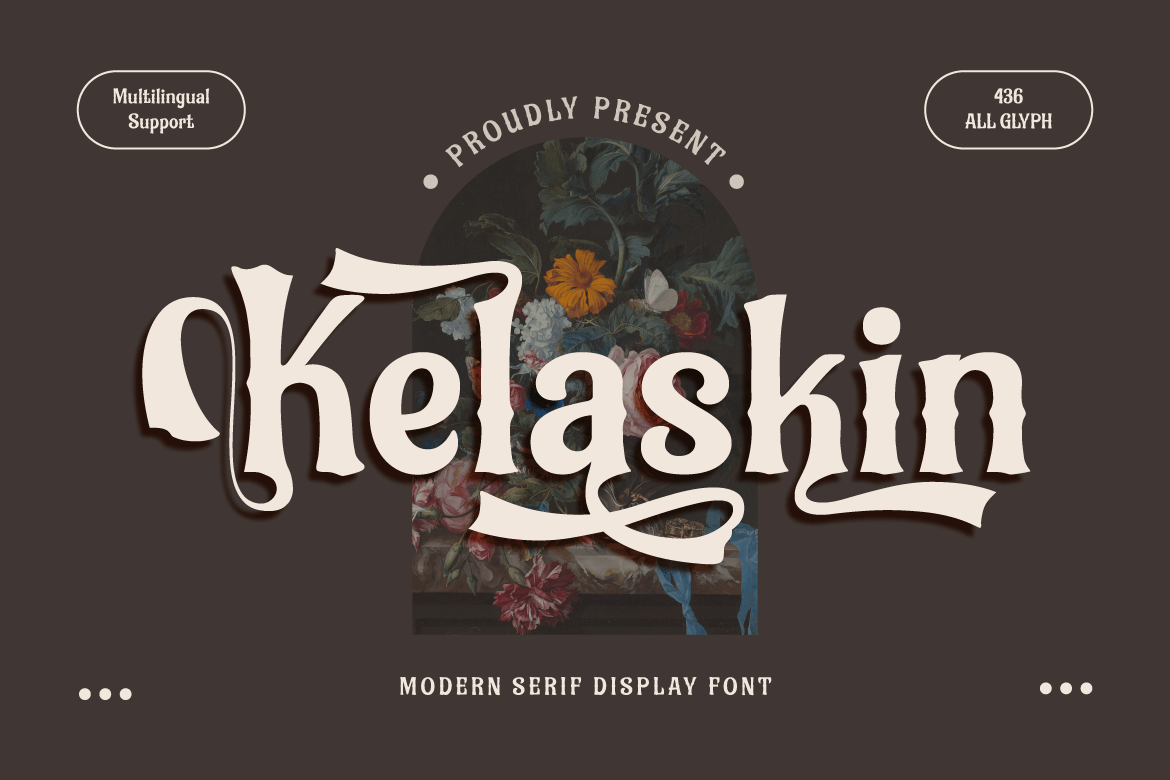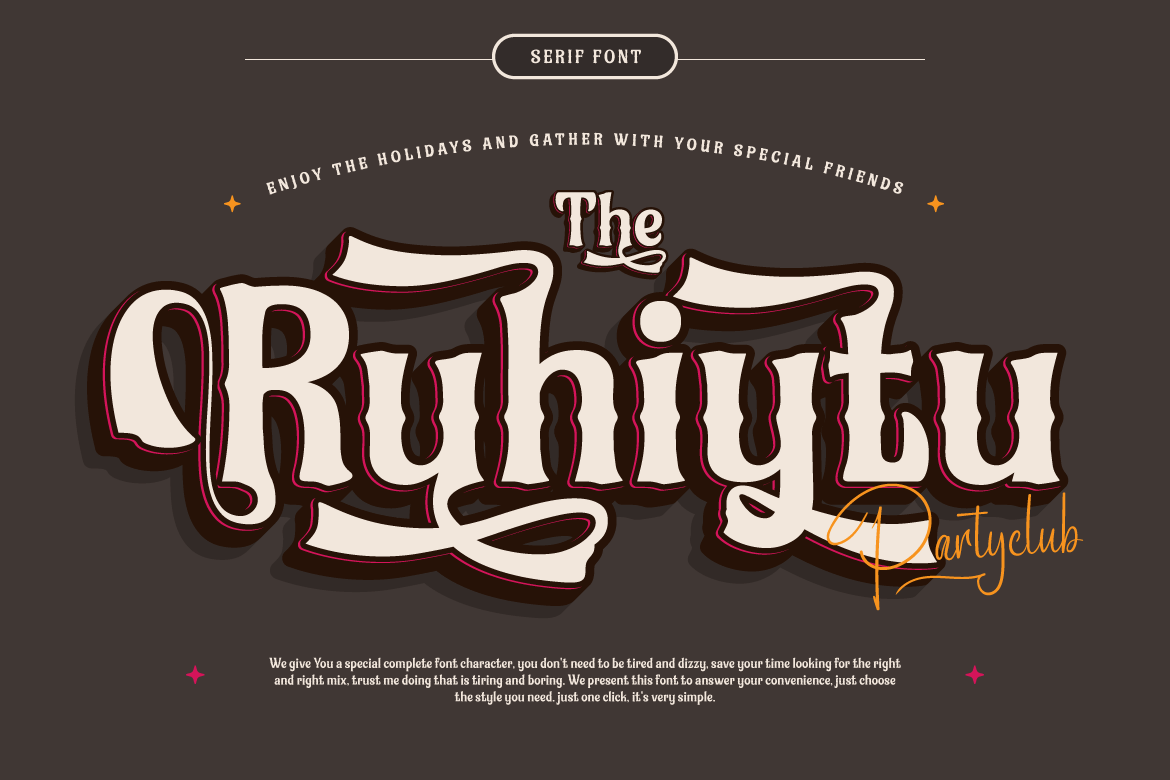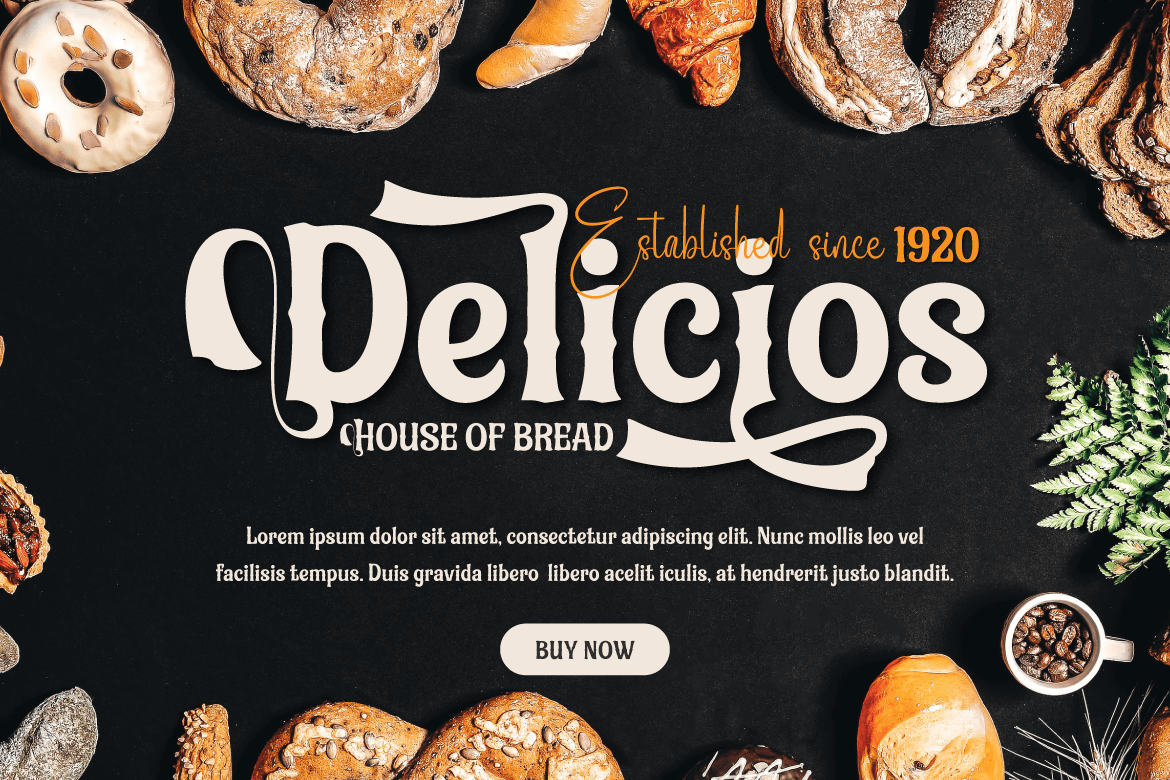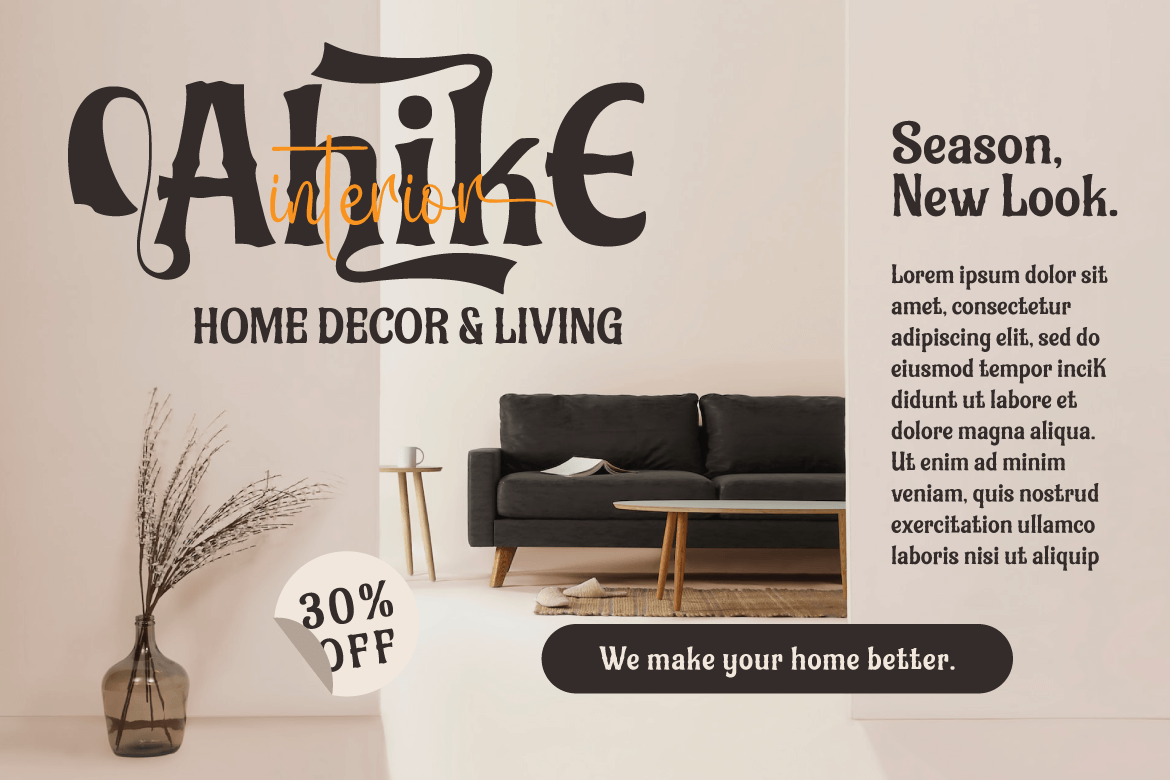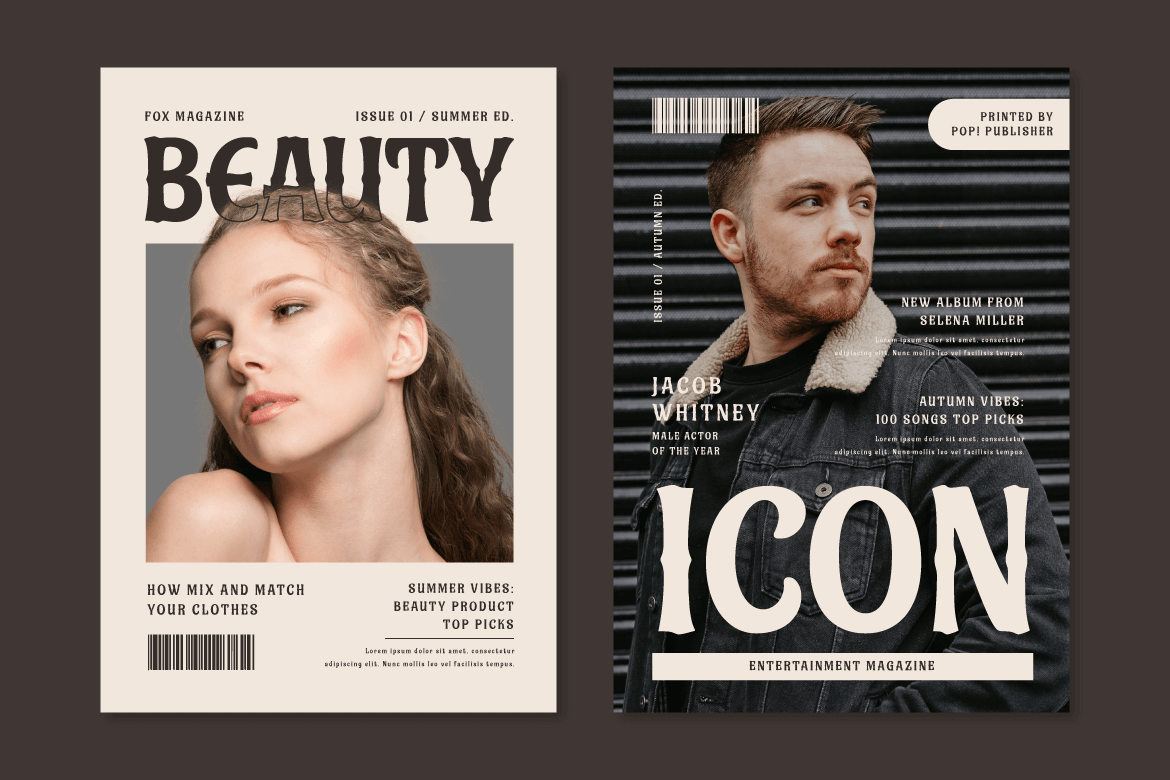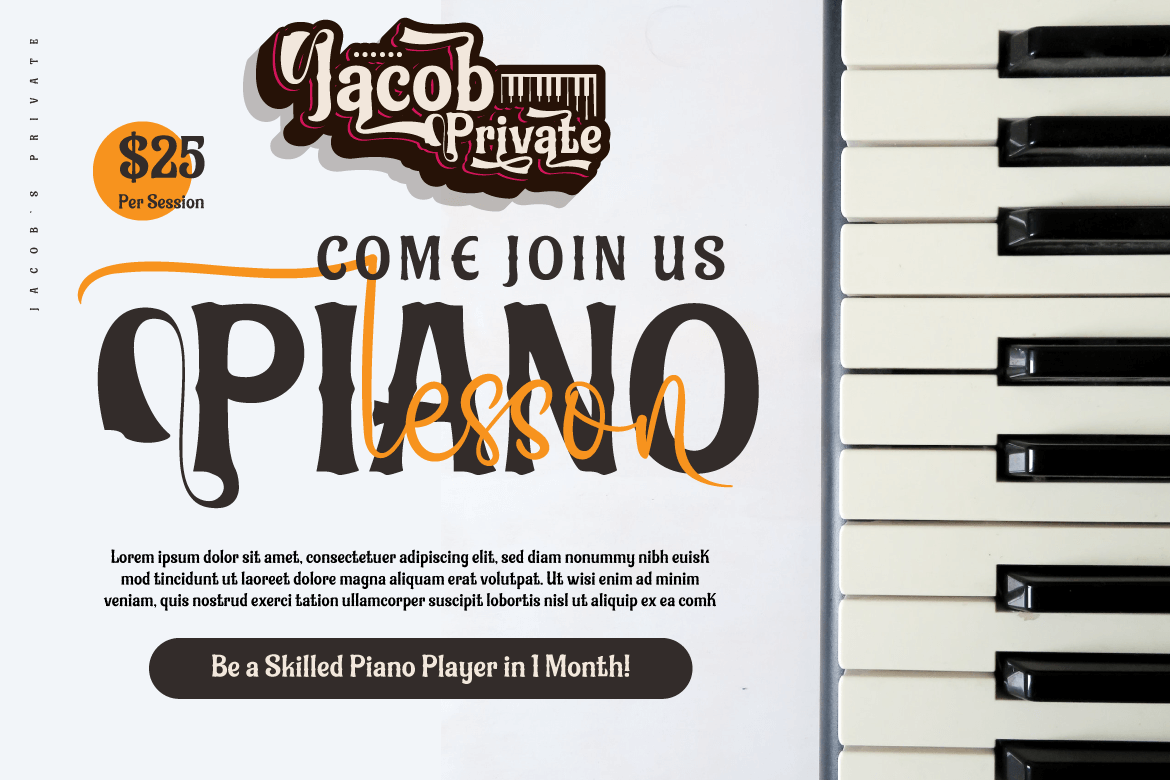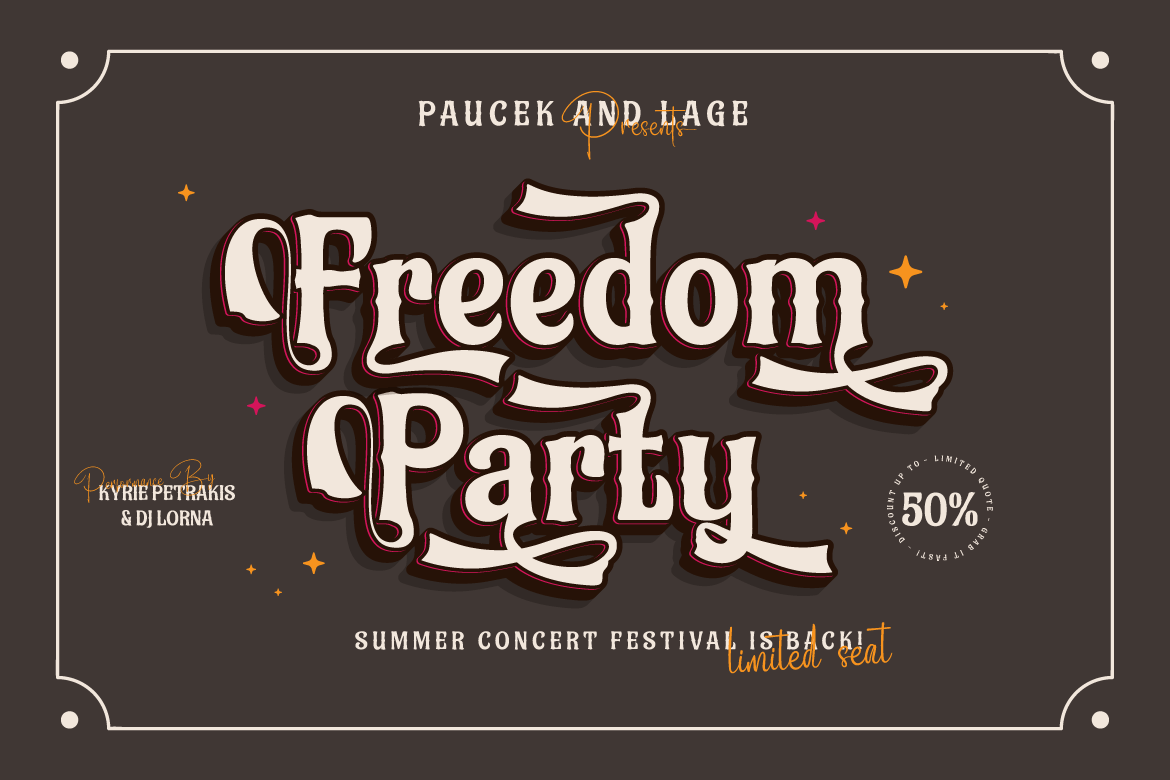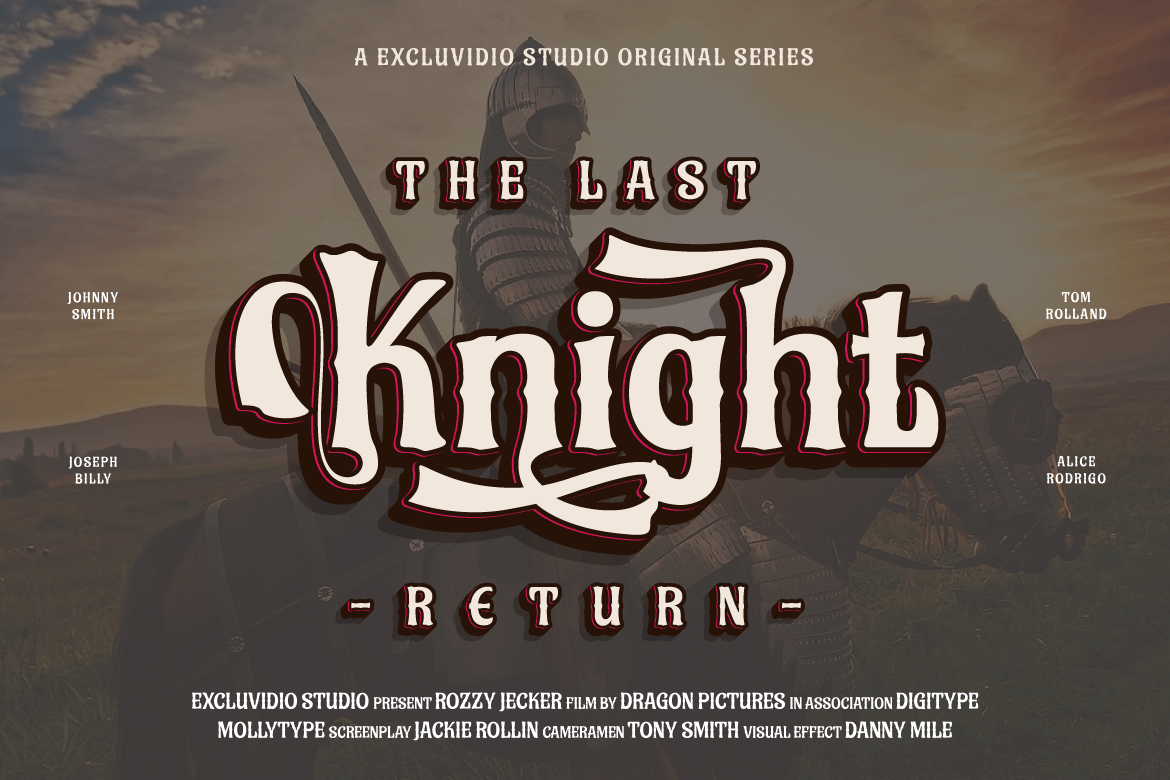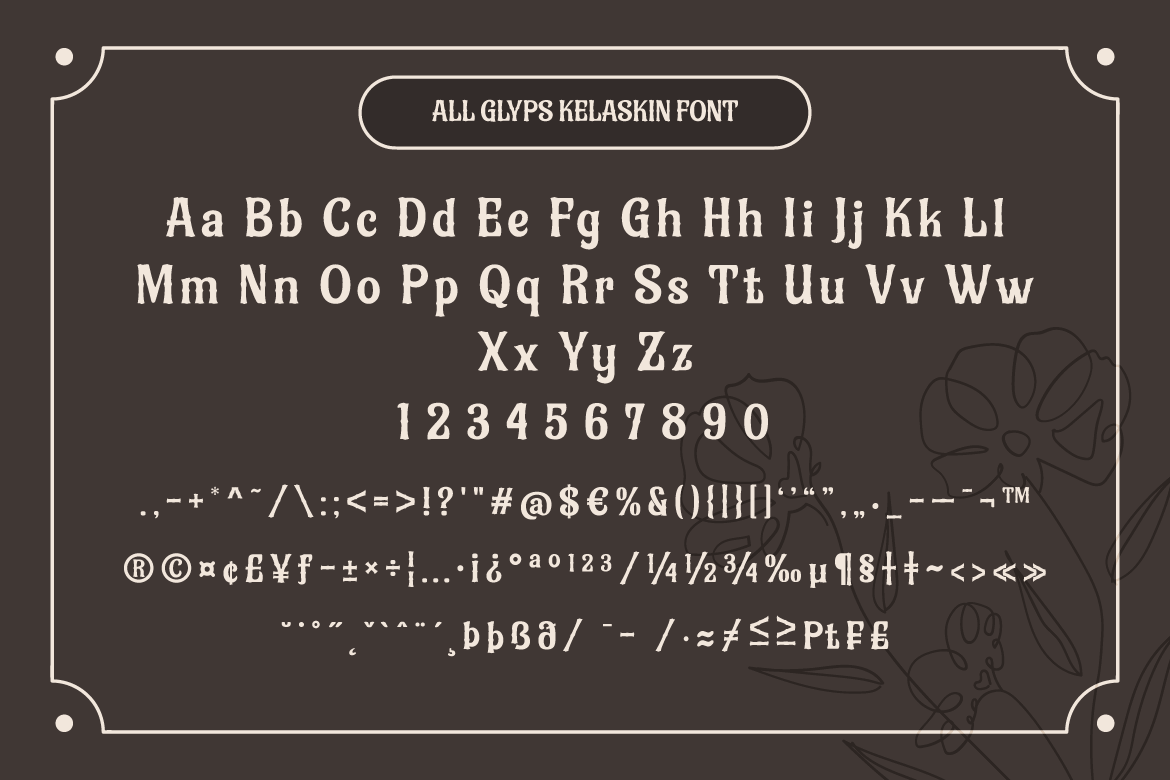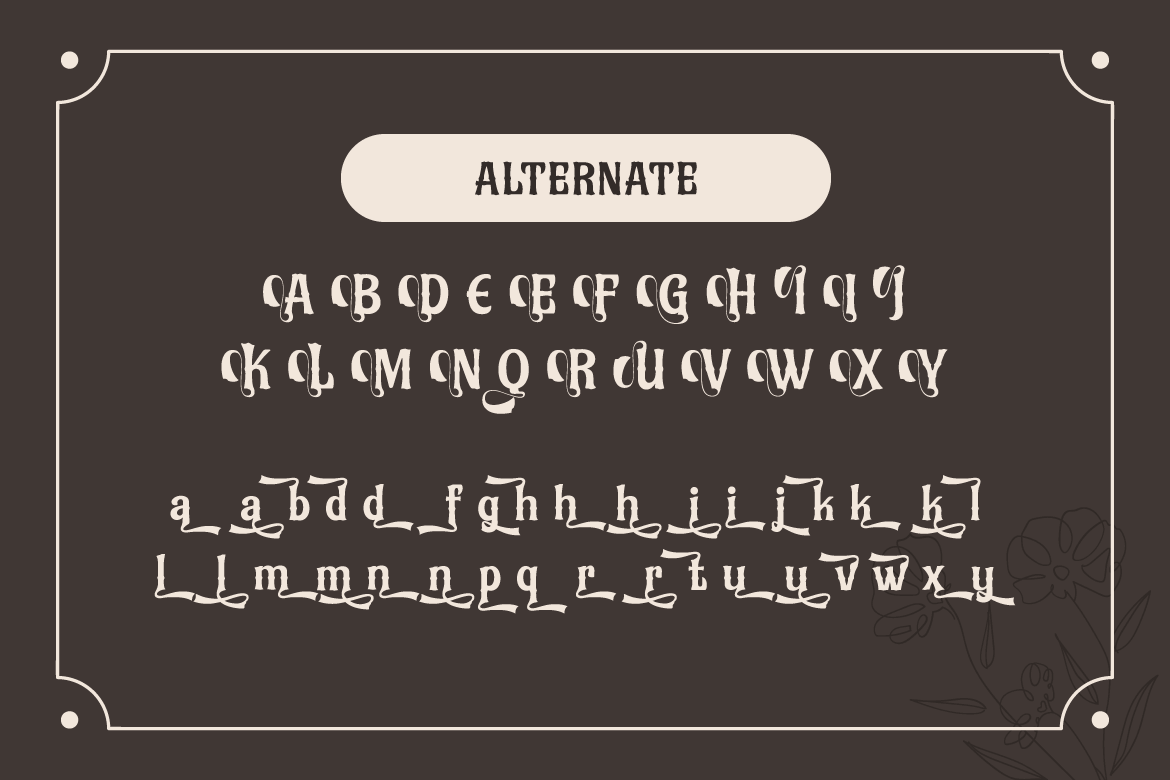
Kelaskin – Classic Modernism Font
Introducing Kelaskin, a classic serif font that exudes elegance and sophistication. Its timeless design is perfect for any project that requires a touch of old-world charm. Kelaskin features a stylistic set that alternates on both uppercase and lowercase letters, giving you more options to customize and create unique designs.
This font is versatile and perfect for a wide range of applications, from branding to editorial design. Its multilingual support ensures that your message can be conveyed across various languages and cultures without any hiccups. With Kelaskin, you can bring a touch of timeless class to your design projects. Get Kelaskin now and elevate your design to a new level of beauty and professionalism.